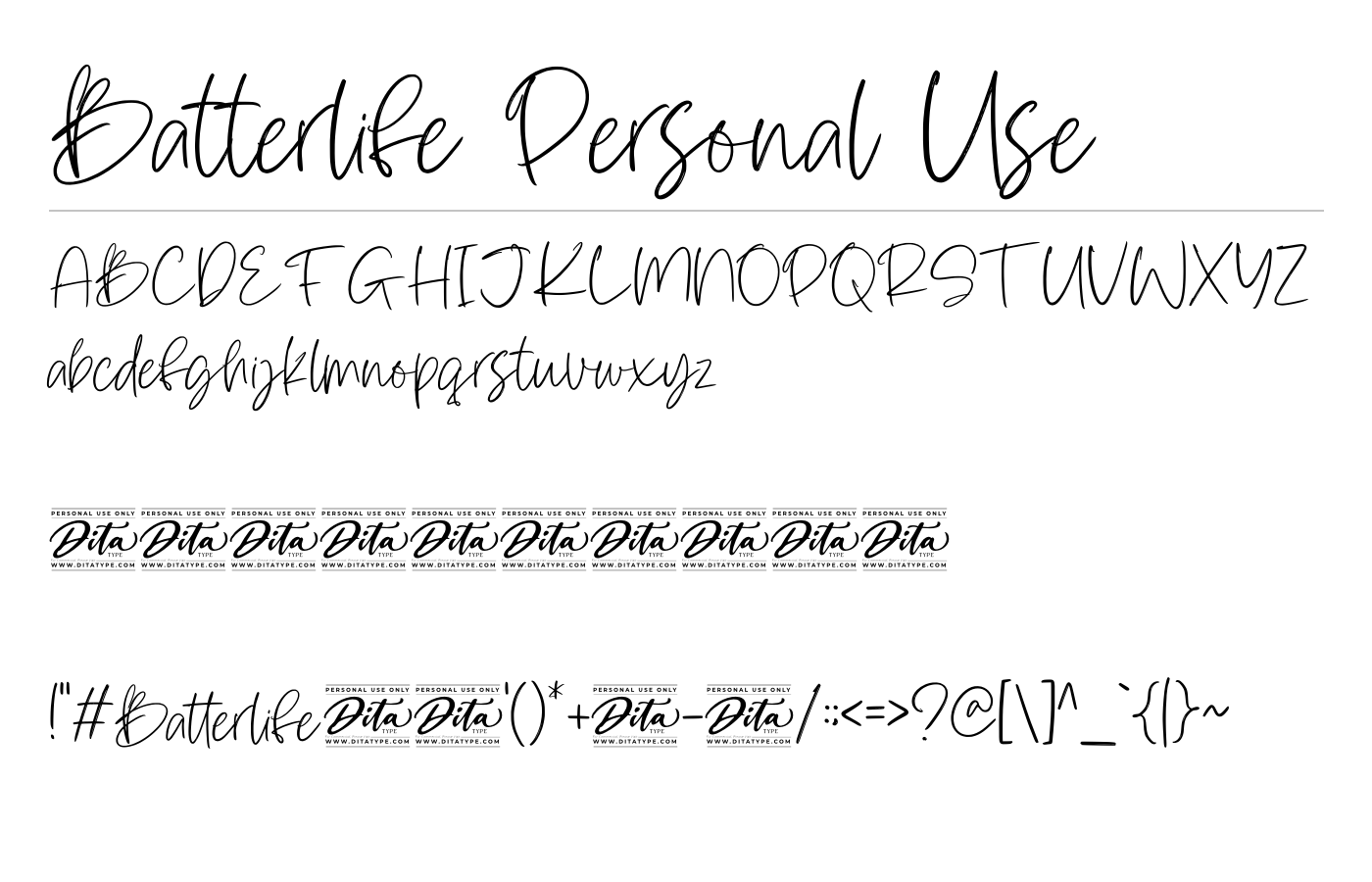
Batterlife Personal Use is a delicate, handwritten script font featuring tall, slender letterforms with a light weight and airy spacing. Its casual, flowing style evokes a friendly and approachable feel, making it perfect for personal projects, invitations, and creative branding that seeks a natural, warm touch. This font shines in contexts where a personal, handwritten vibe is desired, adding charm without sacrificing readability.
| Font family | Batterlife Personal Use Font |
| Designer | Fahrul Arjianto & Dhonis Miftahudin |
| Trademark | Ditatype |